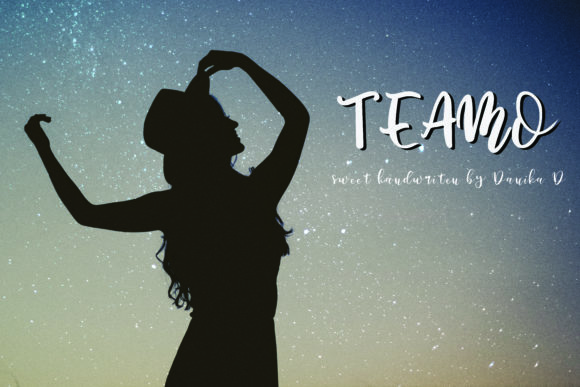
Introducing Teamo, a breathtakingly adorable script font that will effortlessly transform your designs into enchanting works of art! Crafted with meticulous care by the talented Danika D, Teamo embodies the essence of playful elegance, inviting you to embark on a creative journey where imagination and charm dance gracefully together.
Teamo's whimsical nature lends an enchanting touch to any project, whether you're crafting invitations that whisper tales of joy or creating branding that sparkles with personality. Its gentle curves and alluring swashes evoke a sense of warmth and happiness, instantly capturing the hearts of those who encounter it.
With Teamo by your side, you'll discover a world of creative possibilities. Unleash your imagination and watch as your designs bloom into vibrant expressions of your unique style. Teamo is not merely a font; it's a captivating companion that will elevate your projects to new heights of charm and loveliness.
Embrace the enchanting embrace of Teamo and let its playful spirit infuse your creations with a touch of magic. Every letter is a stroke of artistry, designed to evoke smiles and spread joy. Whether you're a seasoned designer or just starting to explore the world of typography, Teamo will ignite your creativity and leave an everlasting impression on all who encounter your designs.